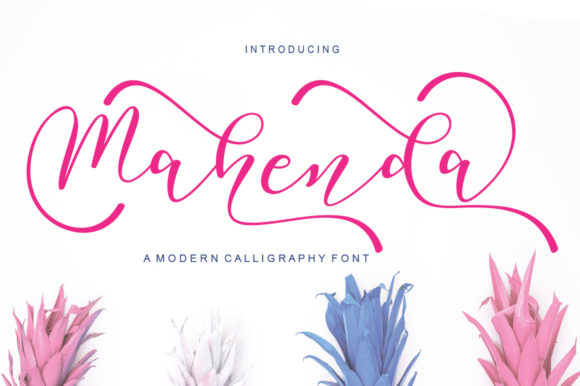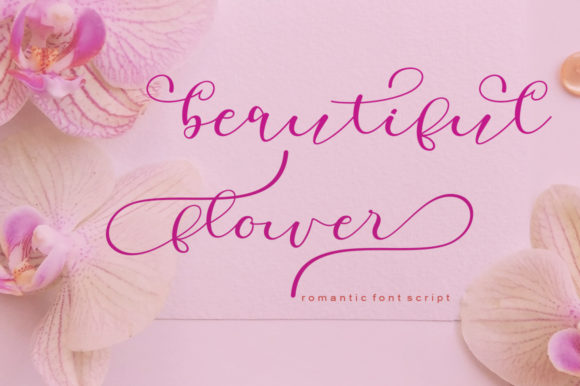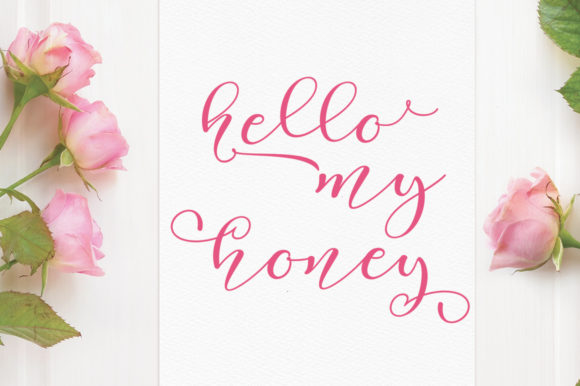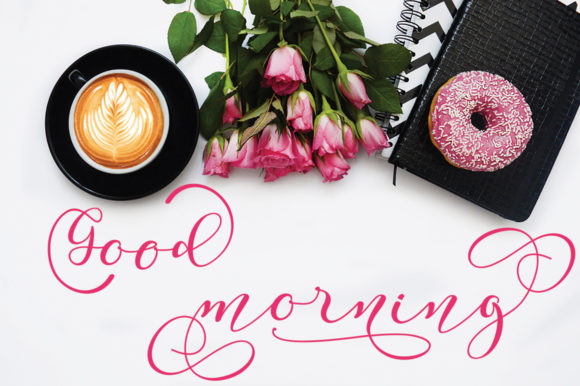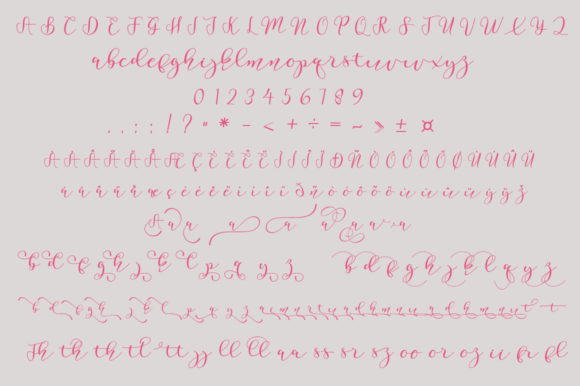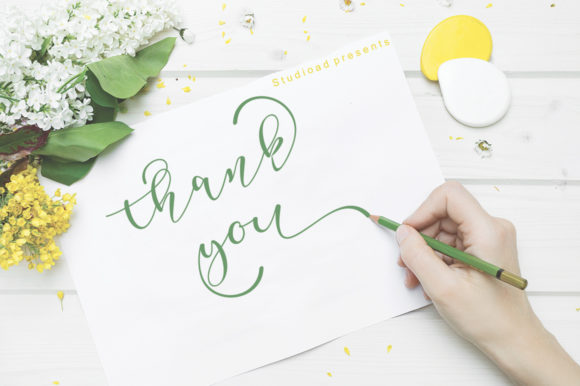
Mahenda Font
About Mahenda Font
Mahenda is a romantic, soft hand-lettered script. The playful rounded characters make it the perfect font for creating stunning calligraphy art. Mahenda comes packed with PUA encoded swashes, that will allow you to add a magical touch within seconds. Get inspired by its authentic feel and use it to create gorgeous wedding invitations, beautiful stationary art, eye-catching social media posts, and cute greeting cards.